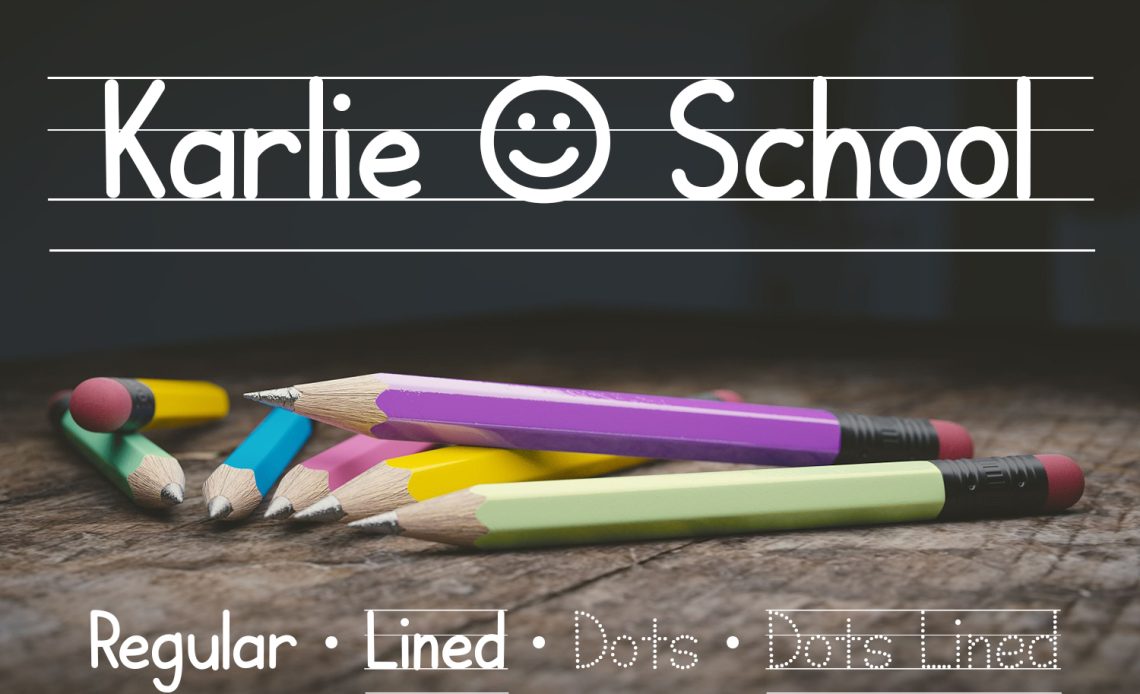
Introducing Karlie School, the perfect font collection for teaching children how to write! Created by Kristy Hatswell, this display font family is sure to grab your attention with its fun and educational design. Karlie School comes with a variety of options to choose from, including a basic handwriting font, a dotted tracing font, and versions with built-in guidelines to make creating worksheets a breeze!
But what sets Karlie School apart from other fonts? This font collection was specifically designed for one of the typographer’s family members, a teacher who struggled to find fonts that met her needs when teaching her students to write. With Karlie School, Kristy Hatswell has created a fun yet educational tool that is perfect for anyone looking to teach children how to write.
Whether you’re a teacher, a parent, or anyone else looking to teach children how to write, Karlie School is the perfect choice. With its eye-catching design and built-in guidelines, this font collection is sure to engage and inspire children to learn. And with a range of options to choose from, you can customize your worksheets to suit your specific needs.